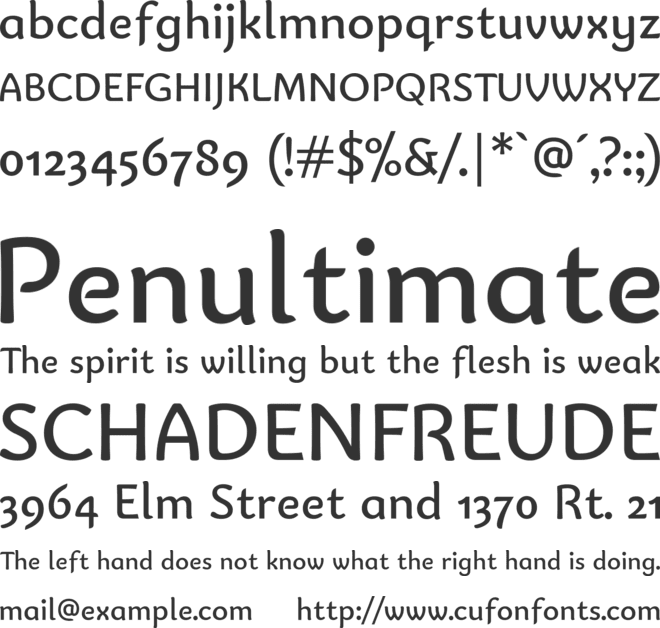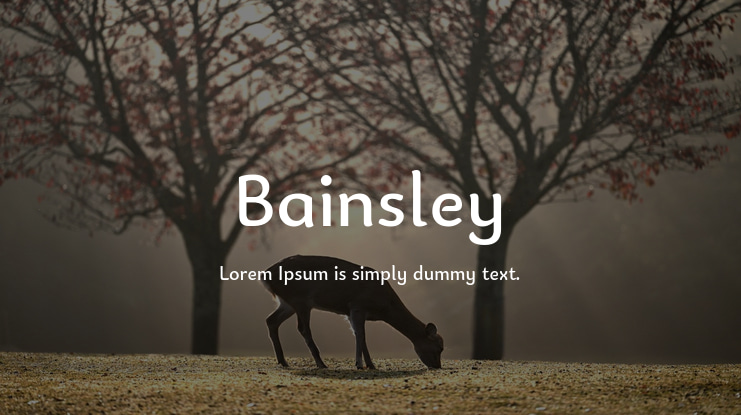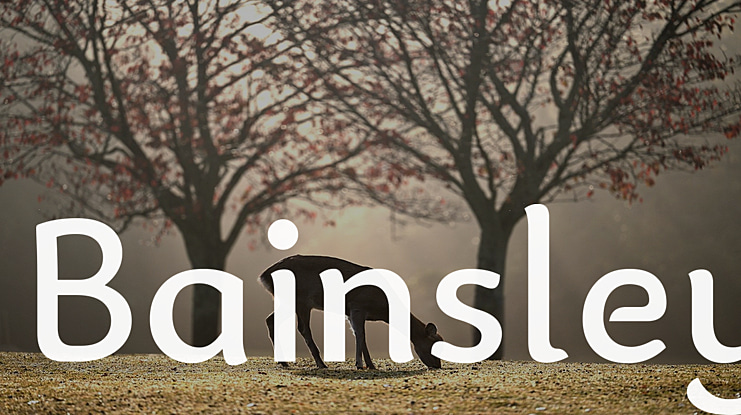
The Bainsley Font
This is a sans serif font which adopts some of the stylistic elements of a serif font. It has been on the go a long time but then 2020 didn't go according to plan and there were a lot of other things to take care of and so font design was abandoned for a while. But now I'm back and I have taken the time to finish Bainsley.
Bainsley has many open type features and supports many european languages including Greek, Cyrillic and Armenian.
The font has many Kerning Pairs and supports fractions, superscript and subscript. The small caps and pettite caps features work with all the supported languages.
The starting point for this font was the Ysabeau font by Christian Thalmann. But this was only a starting point the font has evolved a lot since then. You can get the original starting point font from :-